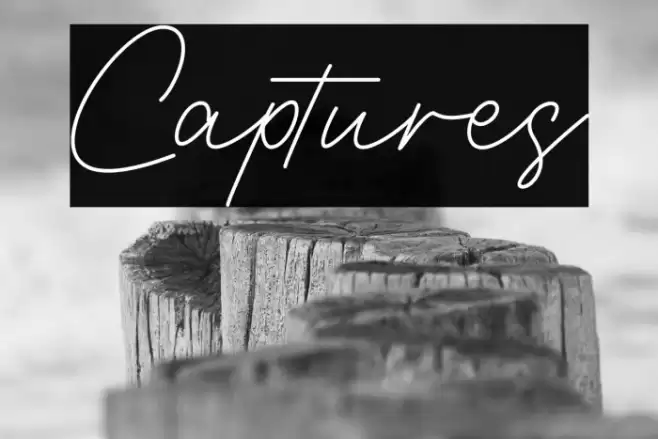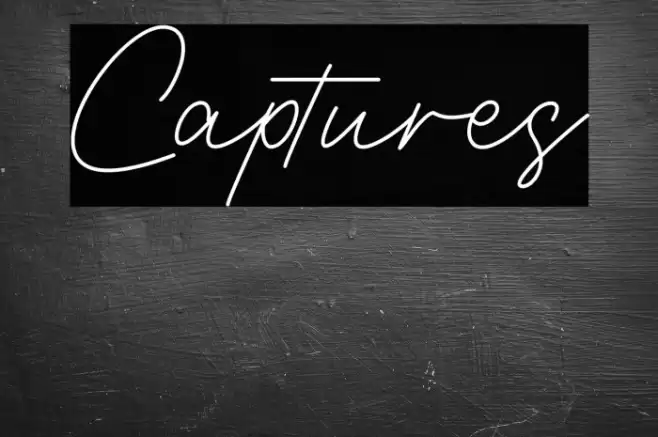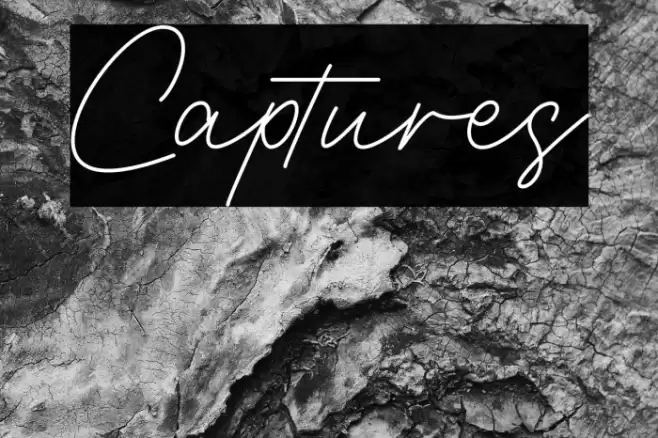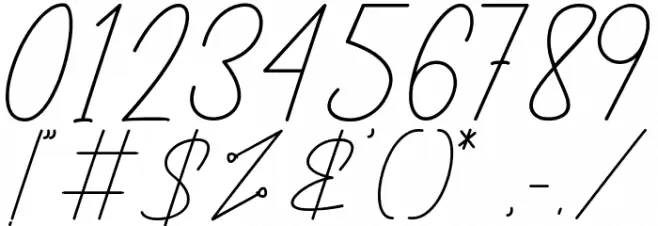
Captures Font
Captures Description
This font features a delicate and flowing script style, characterized by its elegant and cursive letterforms. The uppercase letters are tall and slender, with a slight slant that adds a sense of motion and grace. The lowercase letters maintain a consistent flow, connecting smoothly in a manner reminiscent of traditional handwriting. The numerals are clear and legible, maintaining the same graceful style as the letters. Special characters are thoughtfully designed to complement the overall aesthetic, ensuring a cohesive look across all text elements. The font's thin strokes and gentle curves give it a refined and sophisticated appearance, making it suitable for projects that require a touch of elegance and personal flair.
A delicate, flowing script font with elegant cursive letterforms from Regular fonts.
- Proposed Projects: Ideal for wedding invitations, personal letters, branding for luxury products, and elegant event signage.
- Weight: Light
- Overall Style: Elegant
- Use Case: Invitations, Branding, Personal Correspondence